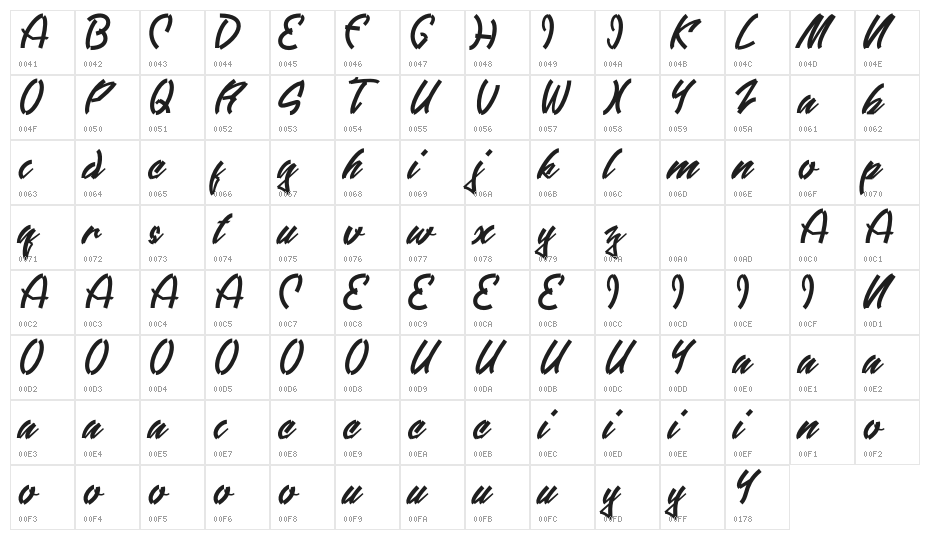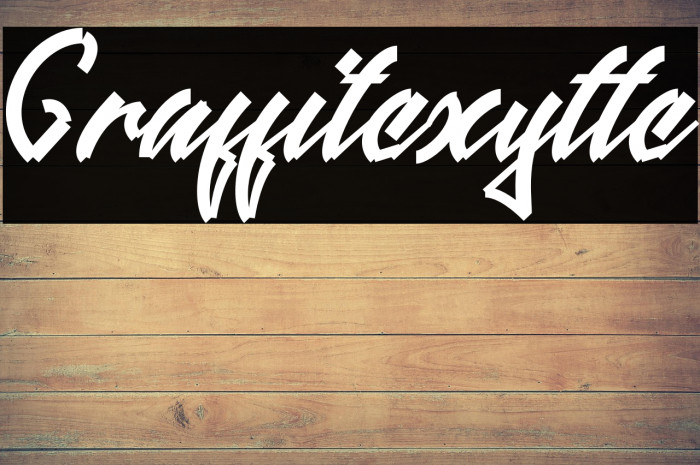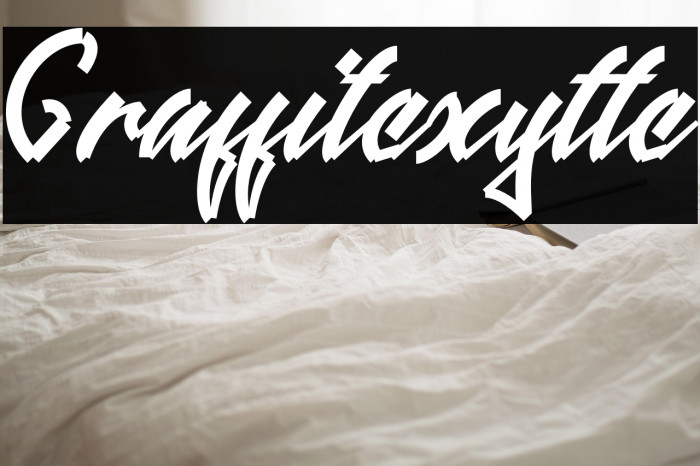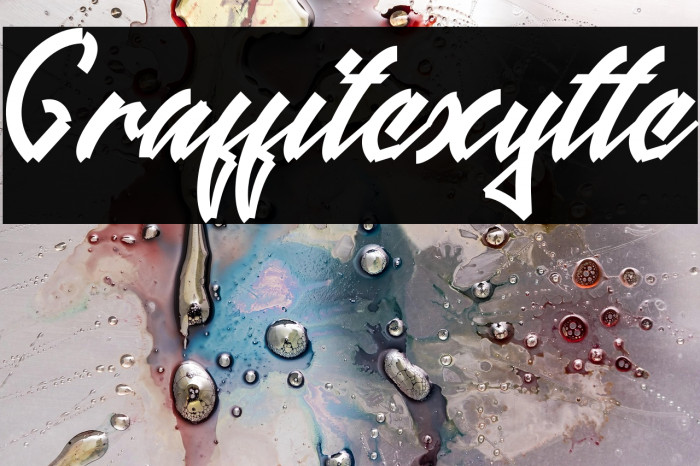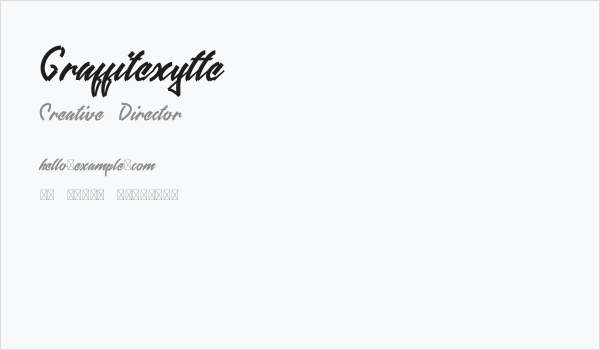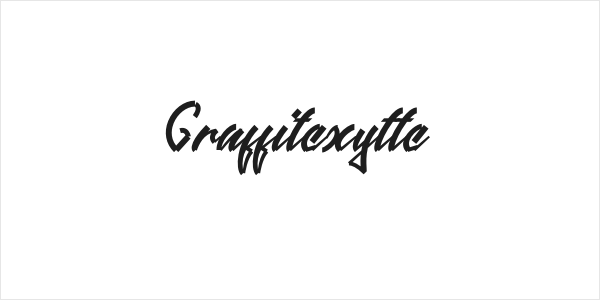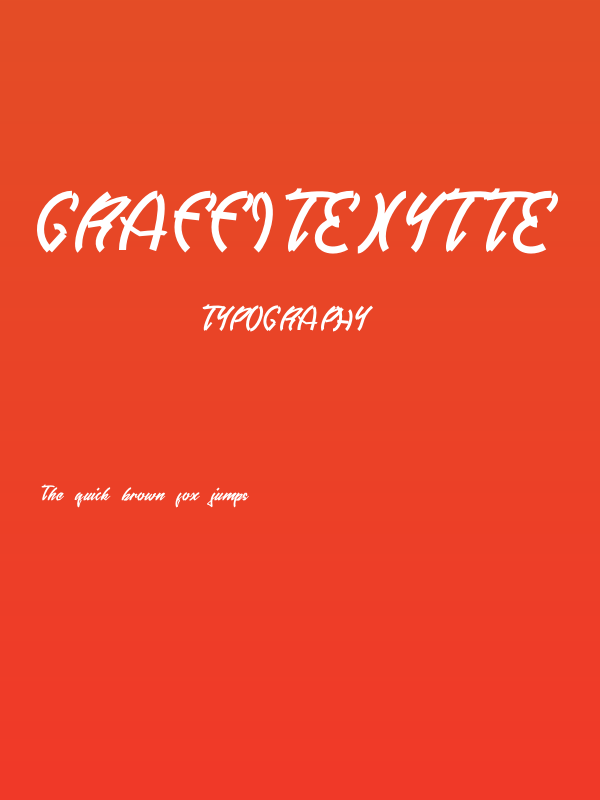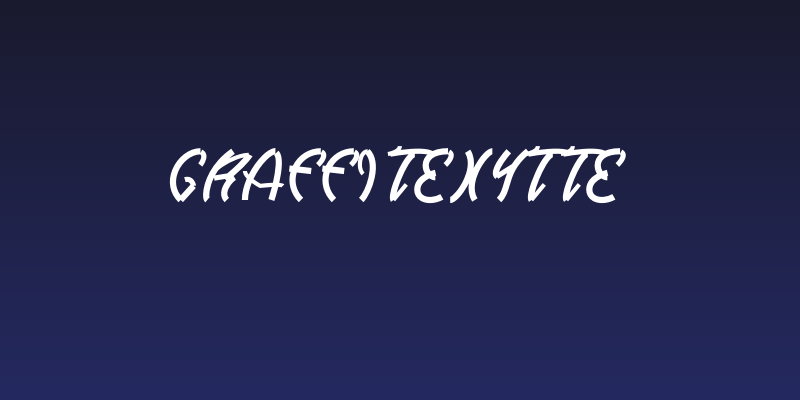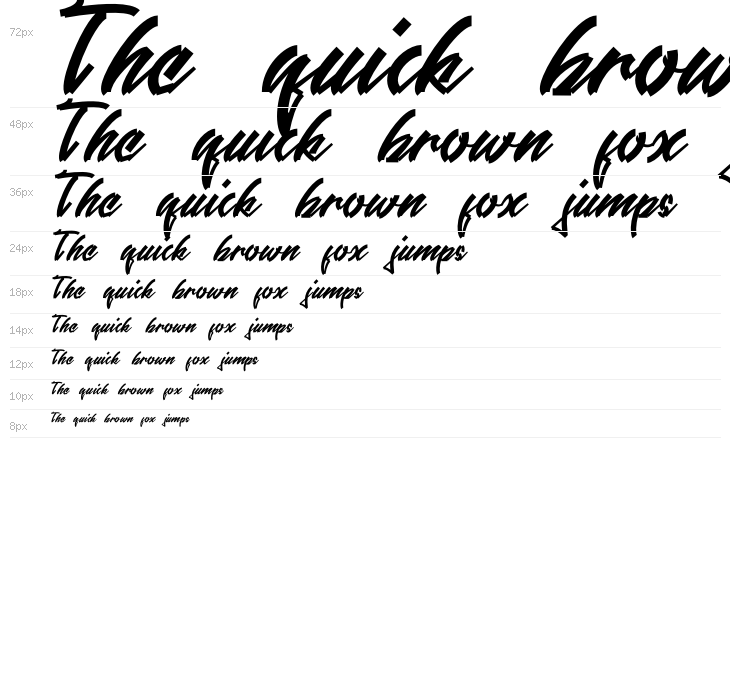
Graffitexytte Font
Graffitexytte Description
This font exhibits a bold and dynamic style, reminiscent of urban graffiti art. The characters are designed with sharp, angular strokes and a sense of movement, giving them an energetic and rebellious feel. The uppercase letters are particularly striking, with a consistent slant and bold presence. The lowercase letters maintain the same energetic style, with some characters featuring unique flourishes that add to the overall aesthetic. The font lacks traditional serifs, opting instead for a more fluid and expressive form. This design choice enhances its modern and edgy appearance, making it suitable for projects that require a strong visual impact.
| Overall Style | Modern, Urban |
| Use Case | Logos, Posters, Album Covers |
| Proposed Projects | Perfect for street art designs, music album covers, urban-themed posters, and edgy branding projects. |